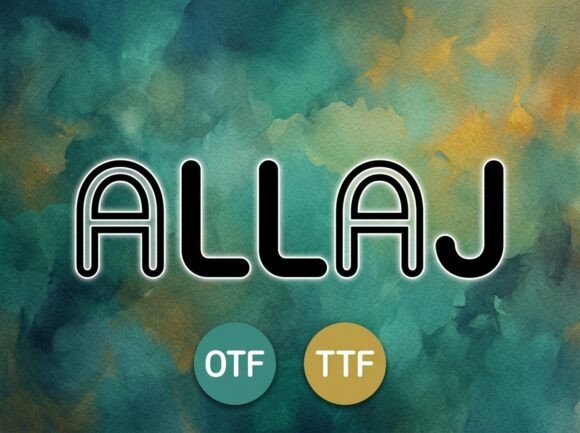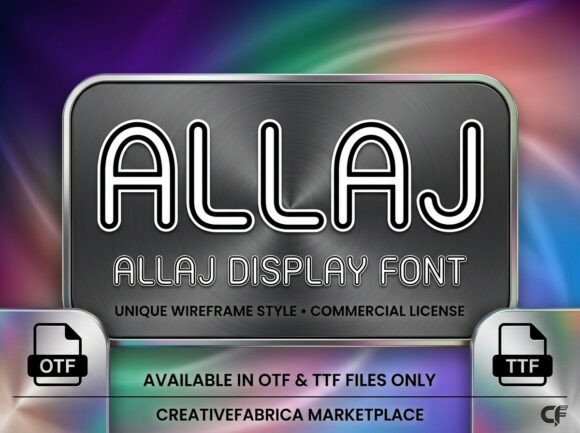
Constructing a Futuristic Vision with Allaj Font
In the realm of typography, the right font can make all the difference in conveying a brand’s identity and aesthetic. For those seeking a precision-engineered display typeface that embodies a “technical-and-transcendent” soul, Allaj Font is an exceptional choice. This sleek and modern font is designed to capture the essence of innovation and futurism, making it perfect for a wide range of applications, from independent software startup identities to luxury automotive branding.
The Unique Characteristics of Allaj Font
Allaj Font is distinguished by its sleek, rounded letterforms, which are uniquely characterized by a rhythmic, hand-drawn “wireframe” inline. This feature is composed of clean double-paths that bridge the gap between high-end architectural blueprints and modern digital branding. The result is a font that exudes a sense of high-tech sophistication and precision engineering.
Balanced Structural Weight and High-Tech Personality
One of the standout features of Allaj Font is its balanced structural weight. This balance ensures that the font is both visually striking and highly legible, making it suitable for a wide range of applications. Whether you’re designing a futuristic gaming interface, a luxury automotive brand, or a high-impact social media header, Allaj Font’s balanced weight ensures that your message is conveyed with clarity and style.
Applications for Allaj Font
Allaj Font is an incredibly versatile typeface that can be used in a variety of contexts. Some of the ideal applications for this font include:
• Independent Software Startup Identities: Allaj Font’s futuristic and high-tech personality makes it an excellent choice for software startups looking to establish a strong brand identity.
• Futuristic Gaming Interfaces: The font’s sleek and modern design ensures that it will stand out in the gaming industry, where visual style and immersion are paramount.
• Luxury Automotive Branding: Allaj Font’s precision-engineered aesthetic and high-end feel make it an excellent fit for luxury automotive brands seeking to convey a sense of sophistication and innovation.
• High-Impact Social Media Headers: The font’s bold and futuristic design makes it perfect for social media headers, where it can help brands stand out and capture attention.
Why Choose Allaj Font?
With its unique blend of technical precision and transcendent style, Allaj Font is an exceptional choice for designers and crafters seeking to create a futuristic vision. Here are just a few reasons why Allaj Font stands out:
• Unique Aesthetic: Allaj Font’s wireframe inline and balanced structural weight create a distinctive look that sets it apart from other typefaces.
• High Versatility: The font’s adaptability makes it suitable for a wide range of applications, from digital branding to print materials.
• High-Quality Design: Allaj Font is precision-engineered to ensure that it looks stunning in any context, from large display headers to smaller body text.
In conclusion, Allaj Font is an exceptional choice for designers and crafters seeking to create a futuristic vision. Its unique blend of technical precision and transcendent style makes it perfect for a wide range of applications, from independent software startup identities to luxury automotive branding. With its balanced structural weight, high-tech personality, and precision-engineered aesthetic, Allaj Font is the premier choice for anyone looking to make a bold statement.